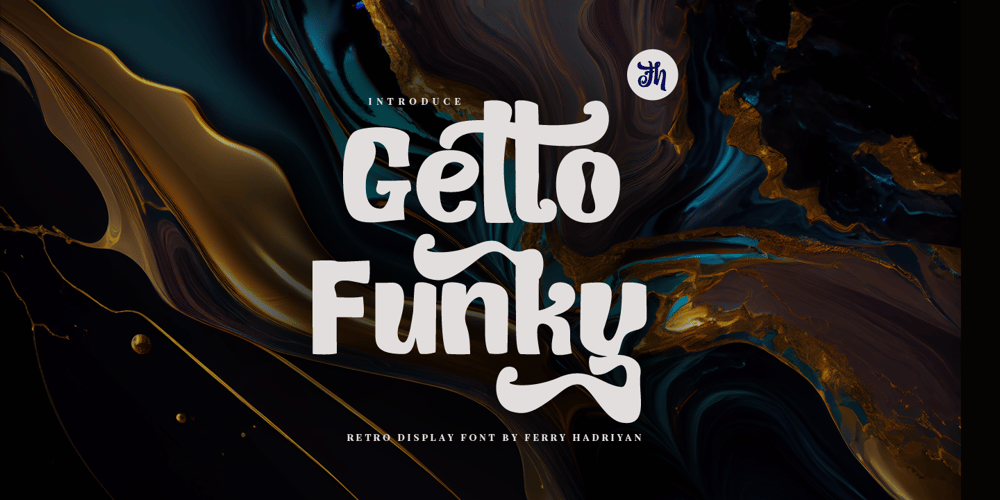
FH Getto Funky
FH Getto Funky font
FH Getto Funky Font Family was designed by Ferry Hadriyan and published by FHFont. FH Getto Funky contains 1 styles and family package options. Getto Funky is a display font with a fun retro style, getto funky includes six (6) stylistic sets (ss) there are ss01, ss02, ss03, ss04, ss05, ss06, and also Standard Ligatures. In every Stylistic Set, this font has unique swashes, and a unique style, like a retro style. This font basically is in display style, suitable for titling, logotype, and font for a poster.